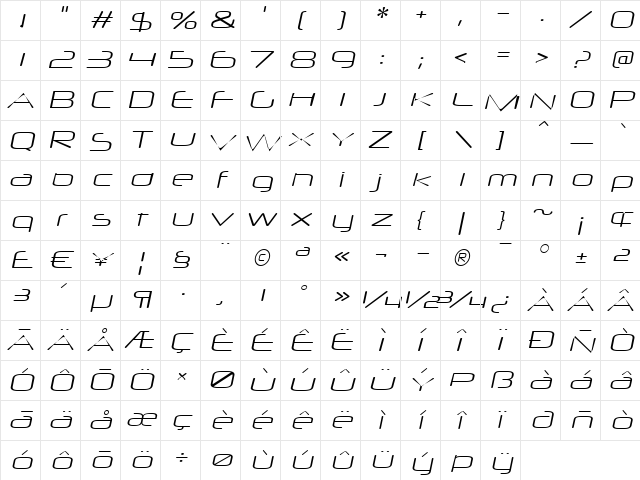
Neuropol X Xp Lite Italic
Design Context for Neuropol X Xp Lite Typeface
Neuropol X Xp Lite offers clean, dependable letterforms without strong stylistic allegiance, making it a practical choice for designers who need flexibility. Its italic angle brings a sense of urgency and motion to the letterforms.
Pro Tip: Try Neuropol X Xp Lite for annotation and caption copy alongside an upright companion — the contrast in angle creates a dynamic but ordered typographic system.